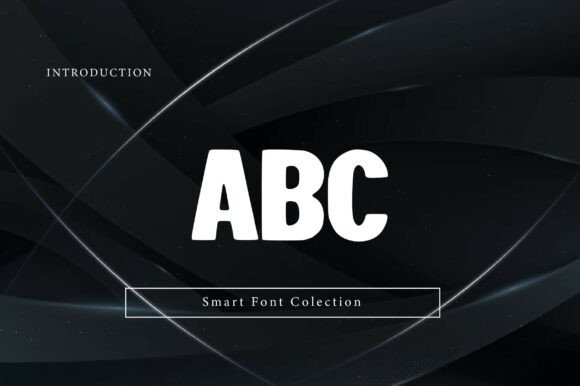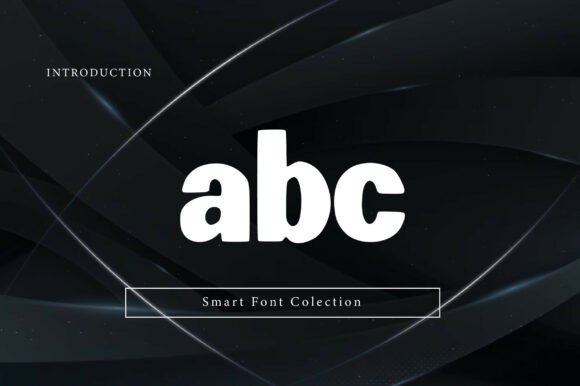
Unleash the Power of Brutalist Bold Font: Command Attention with Industrial Flair
In the realm of typography, few fonts command attention like the Brutalist Bold font. Engineered for maximum visibility and modern impact, this powerhouse of a typeface is a game-changer for designers seeking to make a statement. Characterized by its monumental structure and clean, industrial lines, the Brutalist Bold typeface strikes a perfect balance between raw strength and digital sophistication.
The Essence of Brutalist Bold Font
The Brutalist Bold font is an essential tool for any designer’s arsenal, specifically tailored for headlines that need to roar with authority. Its sturdy presence and architectural weight make it an ideal choice for high-pressure environments like tech branding, editorial spreads, and bold website headers. Whether you’re looking to create a lasting impression or simply want to ensure your message is heard, this typeface is the perfect solution.
Key Characteristics of Brutalist Bold Font
- Monumental Structure: The Brutalist Bold font boasts a robust and imposing structure that demands attention.
- Clean and Industrial Lines: The typeface features clean, industrial lines that evoke a sense of modernity and sophistication.
- Raw Strength and Digital Sophistication: The Brutalist Bold font seamlessly balances raw strength with digital sophistication, making it perfect for a wide range of design applications.
Design Applications for Brutalist Bold Font
The Brutalist Bold font is incredibly versatile and can be used in various design applications, including:
- Posters and Large-Scale Signage: The typeface is particularly effective for posters and large-scale signage where clarity is paramount.
- Tech Branding: The Brutalist Bold font is well-suited for tech branding, adding a touch of modernity and sophistication to your brand’s identity.
- Editorial Spreads: The typeface is perfect for editorial spreads, allowing you to create bold and eye-catching headlines.
- Website Headers: The Brutalist Bold font can be used to create striking website headers that grab attention and leave a lasting impression.
Pairing Brutalist Bold Font with Other Typefaces
To enhance the professional feel of your design, pair the Brutalist Bold font with a minimalist monospaced font. This creates a sophisticated hierarchy that adds depth and visual interest to your design. The contrast between the bold, industrial lines of the Brutalist Bold font and the clean, minimalist lines of the monospaced font creates a visually appealing combination that is sure to impress.
Tips for Using Brutalist Bold Font Effectively
- Use for Headlines: The Brutalist Bold font is perfect for headlines that need to roar with authority.
- Balance with Other Typefaces: Pair the Brutalist Bold font with other typefaces to create a sophisticated hierarchy.
- Consider the Context: Take into account the context in which the font will be used, ensuring it aligns with your brand’s identity and message.
The Brutalist Bold font is a powerful tool for designers seeking to make a statement. With its monumental structure, clean industrial lines, and perfect balance of raw strength and digital sophistication, this typeface is sure to command attention and leave a lasting impression. Whether you’re working on a tech branding project, editorial spread, or bold website header, the Brutalist Bold font is an excellent choice. Pair it with a minimalist monospaced font to enhance the professional feel, and don’t be afraid to experiment with different design applications. With the Brutalist Bold font, you can ensure that your core message is delivered with a contemporary flair that feels relevant, unshakeable, and undeniably modern.